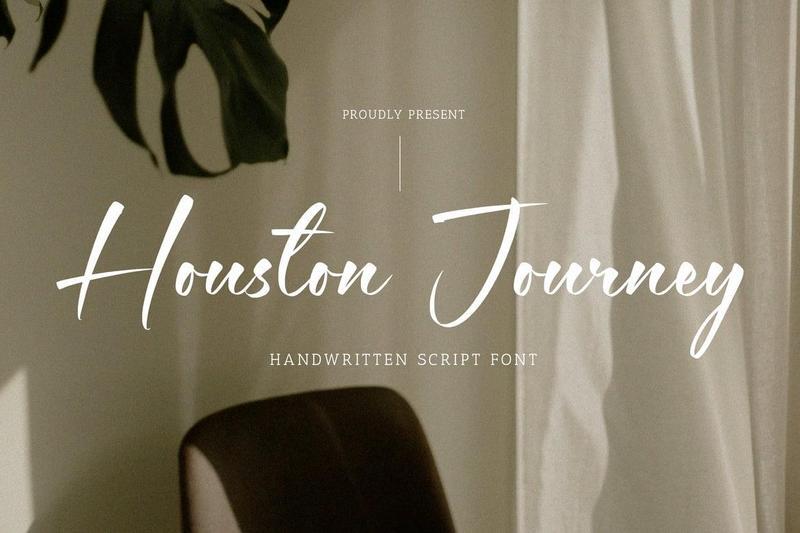
Houston Journey A Handwritten Script Font, which was created with great care and specially created for you.
Houston Journey is perfect for product packaging, branding project, megazine, social media, wedding, or just used to express words above the background.